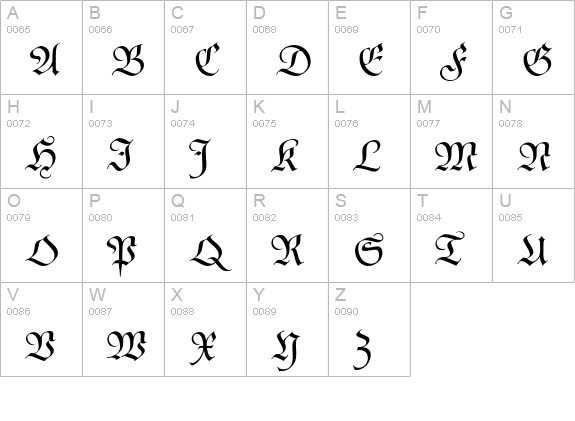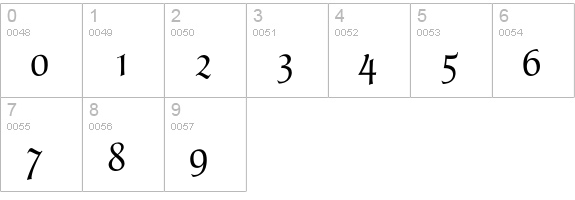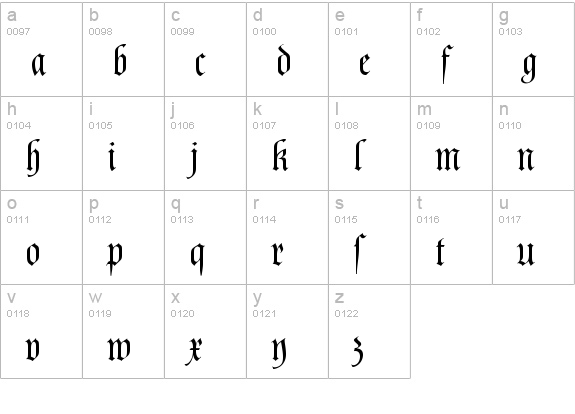
Poppl Fraktur BQ Font Details
Poppl Fraktur BQ is a timeless font that exudes elegance and sophistication. With its intricate details and classic design, this font is perfect for adding a touch of old-world charm to any project. The sharp serifs and intricate letterforms make Poppl Fraktur BQ stand out and grab attention. What makes Poppl Fraktur BQ even more appealing is that it is available for free download at FontsMarket.com. This means that you can easily access this beautiful font and use it in your projects without any cost. Whether you're working on a branding project, a wedding invitation, or a vintage-inspired poster, Poppl Fraktur BQ is sure to elevate your design and give it a touch of sophistication. So why wait? Download Poppl Fraktur BQ for free today and add a touch of timeless elegance to your designs.